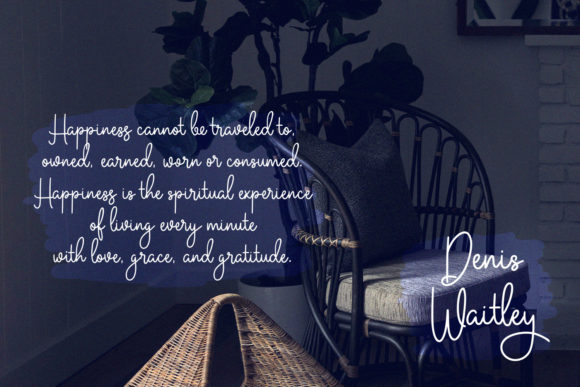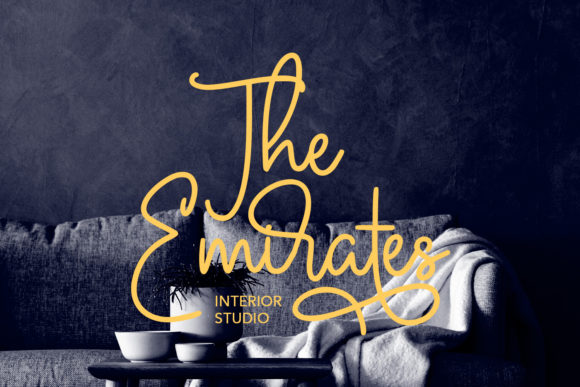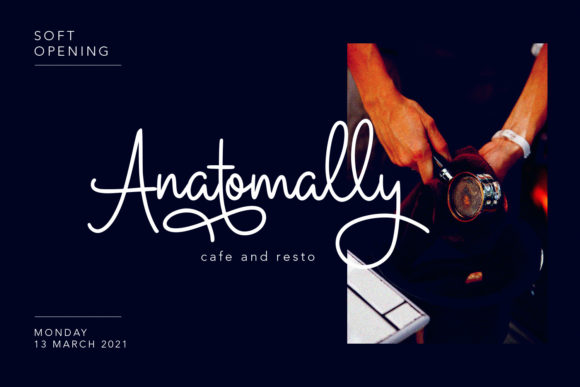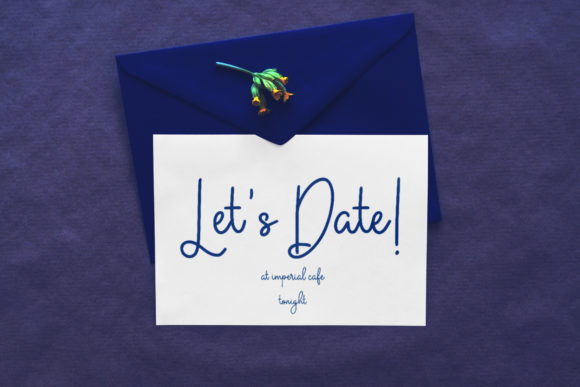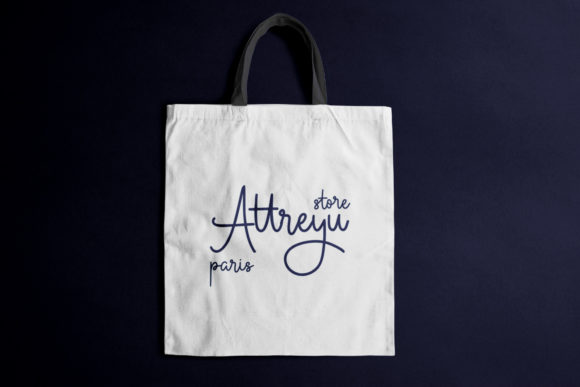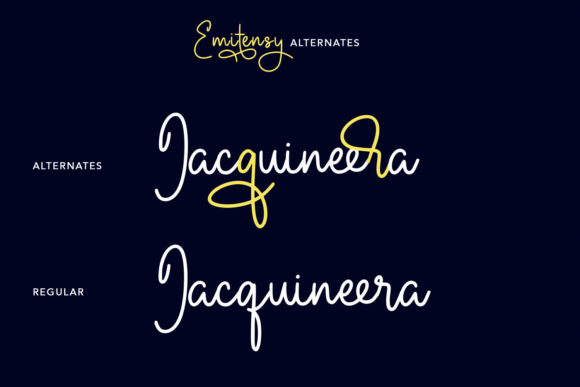
The Joy of Emitensy Script: A Delicate and Charming Font for Creative Projects
I’ll never forget the time I was working on a vintage-themed wedding invitation project, and I just couldn’t find the perfect font to capture the essence of the occasion. My client wanted something delicate, yet joyful, and I was determined to deliver. That’s when I stumbled upon Emitensy Script, a beautiful, thin lettered script font that instantly won my heart. In this article, I’ll share my experience with Emitensy Script, its features, and how to make the most of it in your creative projects.
An Honest Review of Emitensy Script
What I Love About Emitensy Script ✨
- 💕 Its joyful and delicate appearance makes it perfect for projects that require a touch of elegance and whimsy.
- ✅ The font is incredibly versatile, suitable for a wide range of creative projects, from wedding invitations to branding and packaging.
- 🌸 Emitensy Script has a unique, vintage flair that sets it apart from more traditional script fonts.
- 🔍 The font is well-designed, with attention to detail and a clear focus on readability.
While Emitensy Script is an excellent font, there are a few minor quirks to be aware of:
- ⚠️ Some of the letters may appear a bit too delicate for very large or bold designs.
- 🤔 The font might not be the best choice for body text or long paragraphs, as its thin strokes can be challenging to read in smaller sizes.
- Experiment with OpenType features, such as ligatures and stylistic alternates, to add visual interest to your design.
The Story Behind Emitensy Script
Emitensy Script was designed with the intention of capturing the essence of vintage elegance and whimsy. The font’s creator aimed to craft a unique, delicate script that would evoke a sense of joy and playfulness. Inspired by classic typography and calligraphy, Emitensy Script is the perfect blend of old-world charm and modern flair.
Q: What type of projects is Emitensy Script best suited for?
A: Emitensy Script is versatile and can be used for a wide range of projects, including wedding invitations, branding, packaging, and more.
Q: Is Emitensy Script suitable for body text or long paragraphs?
A: While Emitensy Script is a beautiful font, its thin strokes may not be ideal for body text or long paragraphs. It’s best used for headings, titles, or short text snippets.